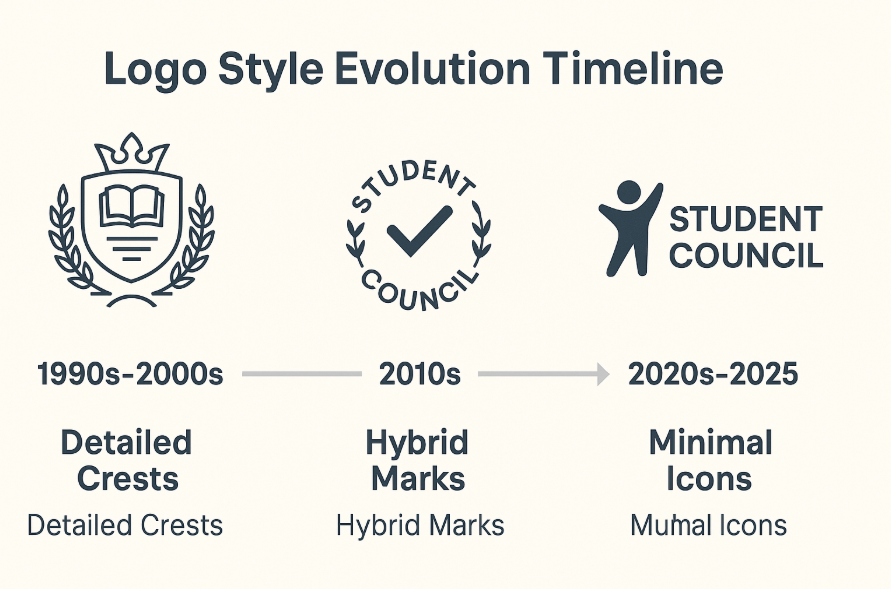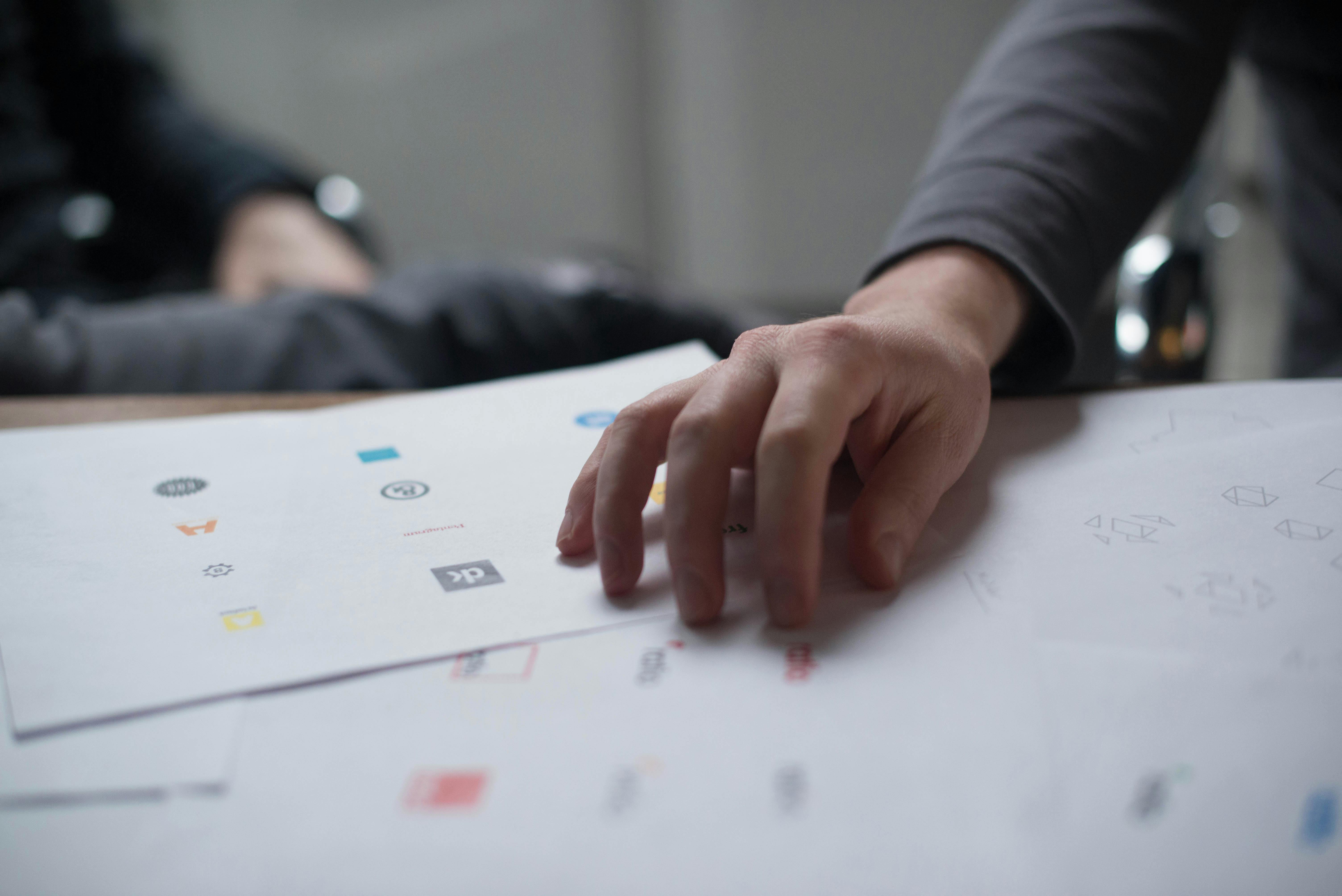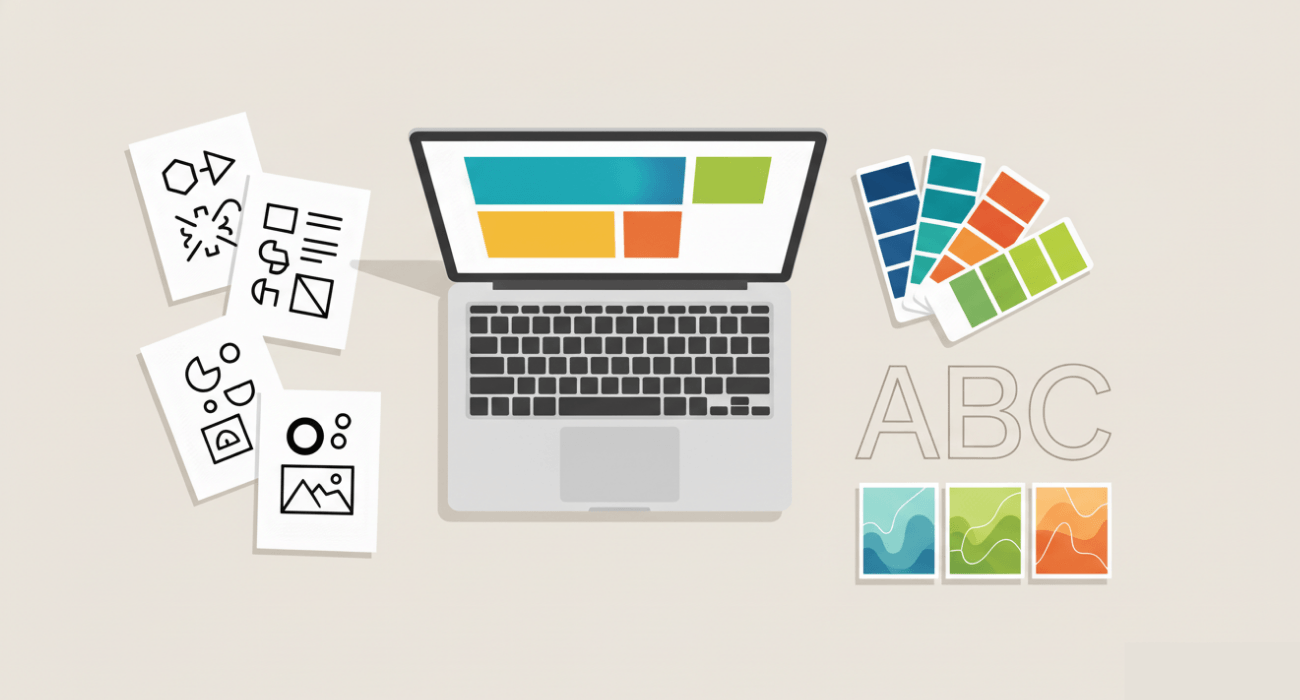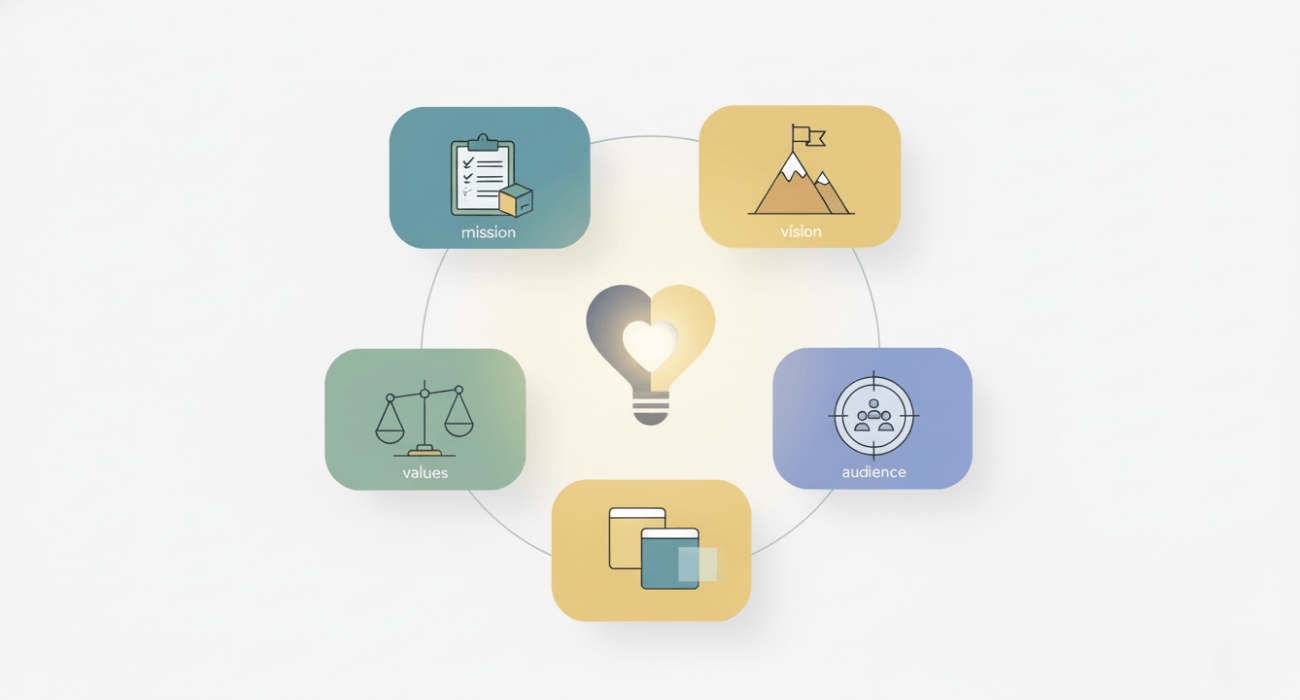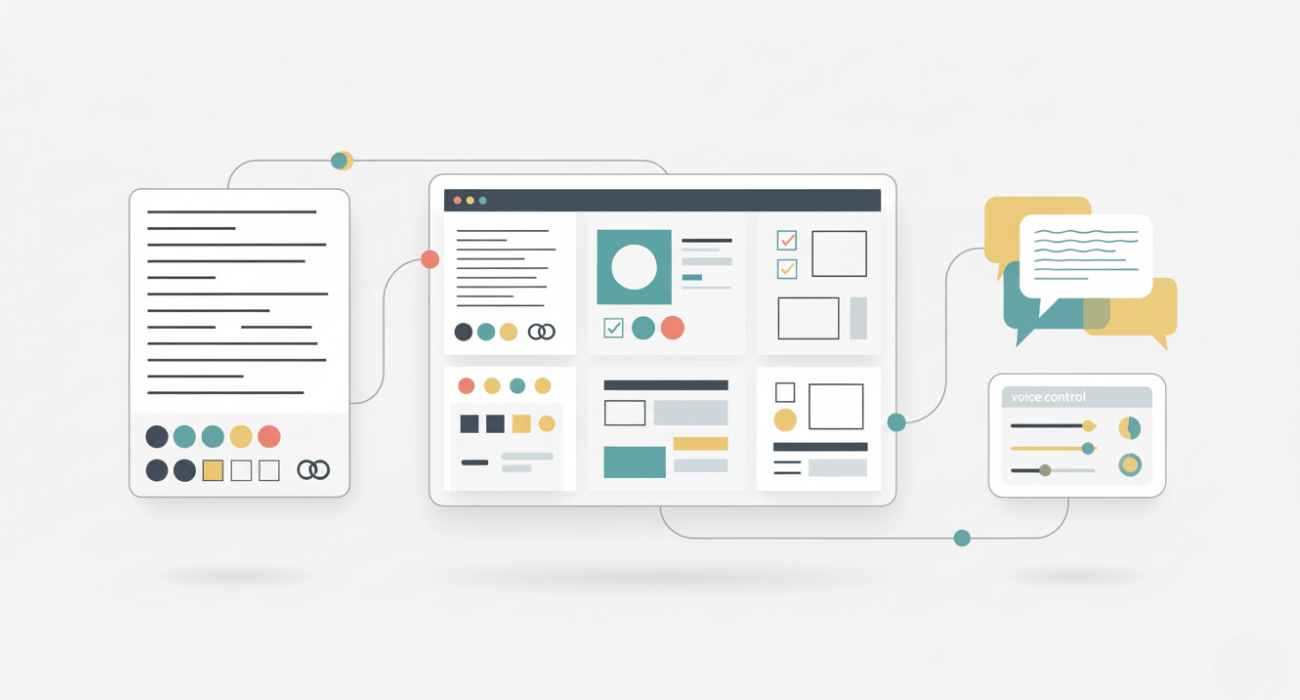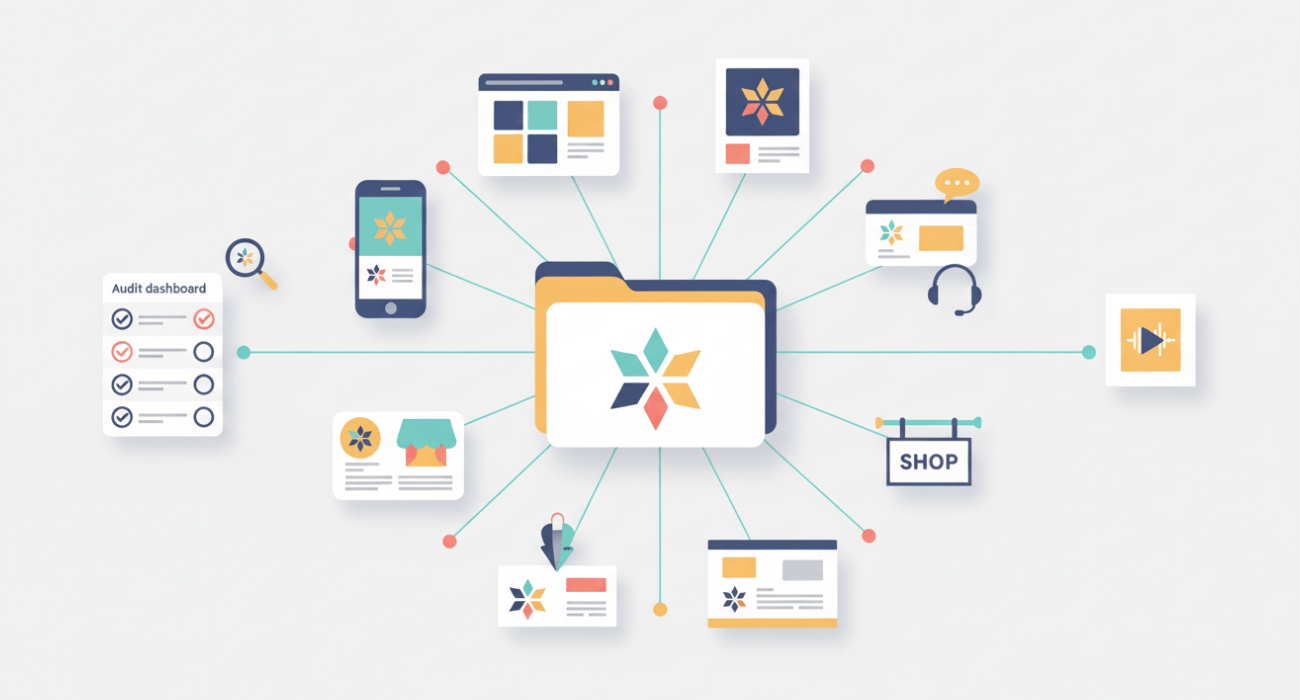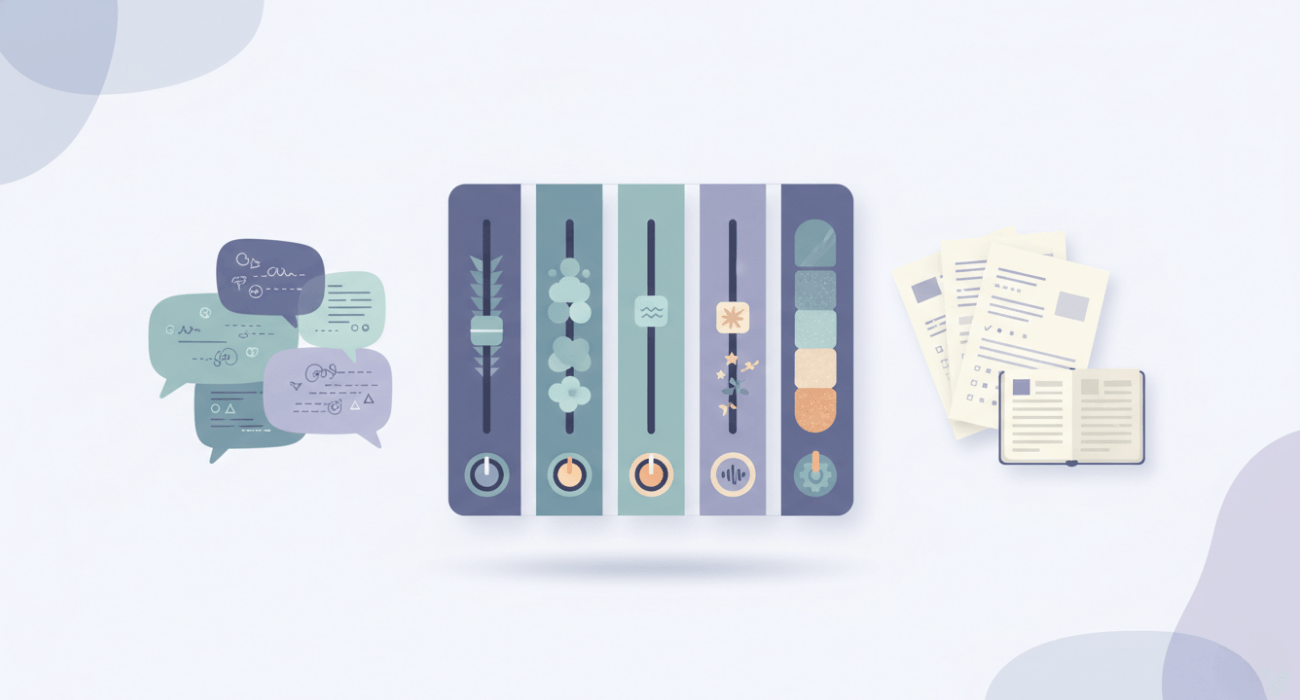
From Font to Voice: A Step-by-Step Guide to Building a Consistent Brand Identity
Have you ever seen a social media post and known exactly which company posted it, even before you saw the name? Maybe it was the specific shade of green, the clean, simple photos, or the funny, casual caption.
Or maybe you've seen a specific, looping script font and immediately thought of Coca-Cola.
That is the magic of a strong, consistent brand identity.
Most people hear "brand" and think of a logo. But your logo is just one small piece of the puzzle. Your brand identity is the complete "personality" of your business. It is the total package: the look, the feel, the sound, and the voice. It's the promise you make to your customers.
But what good is a personality if it changes every day? That's where consistency comes in.
Brand consistency is the secret sauce. It is the practice of applying your brand's personality to everything you do, whether on your official channels or on third-party UGC platforms. Every social media post. Every email. Every product package. Every customer service call. When you are consistent, you are reliable.
Why bother with all this work? It's simple.
• It builds recognition. Customers will see your content and know it's you, instantly.
• It establishes trust. People trust what they know. A consistent brand feels professional, stable, and dependable.
• It creates loyalty. When customers feel connected to your familiar personality, they become more than just buyers. They become fans.
This guide will give you a clear, five-step process to build that identity from the ground up. We will cover everything from the visual "font" to the verbal "voice" and lock it all in.
You cannot pick an outfit for a friend if you do not know their personality. The same goes for your brand. Before you pick a single color or write one line of ad copy, you have to know who you are.
Step 1: The Foundation - Define Your Brand's "Soul"
You cannot pick an outfit for a friend if you do not know their personality. The same goes for your brand. Before you pick a single color or write one line of ad copy, you have to know who you are.
This first step is all about your brand's "soul."
Your "Why": Mission, Vision, and Values
This is the core of your brand. You need to write these down and make them clear.
• Your Mission: What do you do right now? Be simple and direct. "We sell high-quality, sustainable coffee beans." "We provide fast, friendly plumbing services." This is your "what."
• Your Vision: What is your big future goal? This is your "why." It's your dream. "To be the leading voice in sustainable coffee." "To be the most trusted home service provider in our city."
• Your Values: What principles guide your actions, no matter what? These are your non-negotiables. Think of 3-5 words. "Quality." "Community." "Honesty." "Sustainability." "Fun." These values will become your compass for every other decision.
Your Audience & Positioning
You cannot be everything to everyone. If you try, you will end up being nothing to no one. You must be specific.
• Your Audience: Who are you talking to? You need to know them. Try to picture your perfect customer. What do they do? What problems do they have? What do they love? What do they value? This is your "customer persona." You might have one or two. Give them a name. This is who you will be talking to in all your marketing.
• Your Positioning: Now, look at your competitors. What makes you different? This is your Unique Value Proposition (UVP). Why should a customer choose you over the other guy? Write that answer in a single, clear sentence. "We are the only plumbing service that offers a 24/7 flat-rate fee." "We are the only coffee shop that roasts its beans in-store." This is your hook.
Step 2: The "Font" - Building Your Visual Identity
This is the part everyone loves. This is the first impression. It's what your customers will see and feel when they find you. It is the physical look of your brand, and it must be based on the "soul" you just defined in Step 1.
Your Logo & Color Palette
• Your Logo: This is your brand's signature. It is not your whole brand, but it is a powerful symbol. It could be a wordmark (like Google or Netflix), an icon (like Apple or Target), or a combination. The most important rule? It must be scalable. It has to look great as a tiny app icon on a phone and as a huge sign on a billboard. It should be simple, memorable, and timeless.
• Your Color Palette: Colors are emotional. They send subconscious messages. Blue often feels trustworthy and calm. Red is about energy and excitement. Green makes you think of nature, health, or wealth.
Do not just pick your favorite colors. Pick the colors that feel right for your brand's values and personality.
A simple palette is best. Choose:
• 1-2 Primary Colors: These are your main brand colors.
• 2-3 Secondary Colors: These support your primary colors. They are often used for backgrounds or less important text.
• 1-2 Accent Colors: These are your "pop" colors. Use them for buttons, calls to action, or special highlights.
Once you have them, get the exact color codes (like the HEX code: #1A2B3C) and write them down.
Typography & Imagery
• Typography: This is the "font" in our title. It is your brand's written appearance. This is a place where consistency is key. You do not need five different fonts. You only need two, maybe three, at most.
• A Headline Font: This is the font you use for titles and big statements. It can have personality. It can be bold and strong, or elegant and light.
• A Body Font: This is the font for your main text, like this paragraph. The most important rule for this font is simple: it must be easy to read. If it's hard to read, people will just leave.
• Imagery: What do your photos and graphics look like? This is a huge part of your visual identity. Are your photos bright, airy, and full of happy people? Or are they dark, moody, and professional? Are your icons simple line art, or are they colorful 3D graphics?
Decide on a style and stick to it. All your visuals must feel like they belong together in the same family.
Step 3: The "Voice" - Crafting Your Verbal Identity
If your visual identity is the "look," your voice is the "sound."
How does your brand talk?
If your brand walked into a room and started a conversation, what would it sound like? Would it be a wise professor? A funny best friend? A caring helper? This is your verbal identity. It is just as important as your visual one.
Finding Your Tone: The Four Dimensions
Your tone is how you say things. It is the attitude and emotion behind your words. A good way to find it is to use spectrums. Decide where your brand lands on each ofThese.
• Formal vs. Casual:
• Formal: "We are pleased to assist you with your inquiry."
• Casual: "Hey! Happy to help with your question."
• Serious vs. Humorous:
• Serious: "A critical update regarding our services."
• Humorous: "Whoops! Our servers are taking a quick nap."
• Respectful vs. Irreverent:
• Respectful: "We honor the traditions of our craft."
• Irreverent: "We're here to break the rules."
• Enthusiastic vs. Matter-of-fact:
• Enthusiastic: "We are SO excited to launch this new feature!"
• Matter-of-fact: "Our new feature launches on September 1st."
There is no "right" answer. The right answer is the one that matches your brand's "soul" and speaks to your target audience.
The Brand Lexicon: Your Words & Rules
This is your brand's private dictionary. It is a simple set of rules for your writing.
• Words to use: What words do you love? (e.g., "We always call our customers 'members'." "We say 'team' instead of 'employees'.")
• Words to avoid: What words do you hate? (e.g., "We never say 'cheap'. We say 'affordable' or 'great value'.")
• Grammar Rules: Get specific. Do you use the Oxford comma? (e.g., "red, white, and blue" vs. "red, white and blue"). Do you write "e-commerce" or "ecommerce"?
These small rules may seem silly, but they add up. They make your writing sound consistent and professional every single time.
Step 4: The "Brand Bible" - Creating Your Style Guide
You have done all this amazing work. You know your mission, your audience, your colors, your fonts, and your voice.
Now what?
You must write it all down in one place. This document is your "Brand Bible," or "Style Guide." It is the single most important document you can create for your brand's consistency. It is the rulebook.
Your Single Source of Truth
Why it is essential: This guide ensures everyone is on the same page. Think about it. Your new marketing intern. The freelance designer you hire. Your sales team. Your customer service reps. They all need to know the rules.
This guide stops "brand dilution." That's the slow, creeping problem where your look and voice slowly drift apart over time. This guide is the anchor that holds your brand steady.
Key Checklist: What goes inside? It can be simple. Here is a basic checklist.
• Foundation (From Step 1): List your Mission, Vision, Values, and your Audience.
• Logo (From Step 2): Show your main logo. Then, show the "Dos and Don'ts." (e.g., "Do not stretch the logo." "Do not change the colors." "Always leave this much white space around it.")
• Color Palette (From Step 2): Show your color blocks. List the HEX, RGB, and CMYK codes for each one.
• Typography (From Step 2): List your fonts. Specify which font is for H1, which is for H2, and which is for body text. Give example sizes.
• Voice & Tone (From Step 3): Describe your brand's voice. List your "Four Dimensions." Give clear "Use this, not that" examples.
• Imagery (From Step 2): Show 5-10 example photos or icons that are perfectly "on-brand."
Step 5: Living the Brand - Implementation & Auditing
A style guide is useless if it just collects dust in a folder. You have to use it. This final step is about putting your brand identity into action, every single day.
From Guide to Reality: Application and Audits
• Rollout: Share this new style guide with your entire team. Not just the marketers. Explain why these rules matter and how they help everyone.
• Application Checklist (Touchpoints): Where do you apply these rules? Everywhere your brand touches a customer.
• Online: Your website, your blog, all your social media profile pictures and descriptions, every social post, your email newsletters, and your email signatures.
• Offline: Your business cards, your product packaging, your store signs, your letterhead, and your trade show banners.
• People: This is a big one. Your brand voice applies to your people, too. This includes your customer service scripts and your sales pitches.
• Living Your Voice: Even the way you communicate in support chats or on sales calls should match your brand's chosen voice. This verbal identity is just as important as the visual one. For some brands, it is even helpful to use tools that can read aloud your scripts and public content in a consistent brand voice. This helps you check if your audio content matches the "feel" you have so carefully chosen.
• The Audit: Finally, you need to do a regular check-up. Once a quarter, gather all your recent materials. Look at your website's homepage, your last 10 social media posts, and your last email campaign.
Ask one question: Do they all look and sound like they came from the exact same brand?
If not, find out why. Fix it. Then do it again in three months.
Conclusion
Building a strong brand is not a one-day project. It is a process.
It starts with your "soul", your "why" and your values. It builds the "look", your font, your colors, and your images. And it defines the "sound", your unique brand voice.
A strong, memorable, and trusted brand does not happen by accident. It is the result of deliberate, smart choices. Your style guide is your map, and practicing consistency every single day is how you follow it.
This is how you build real trust. This is how you turn casual customers into loyal, lifelong fans.